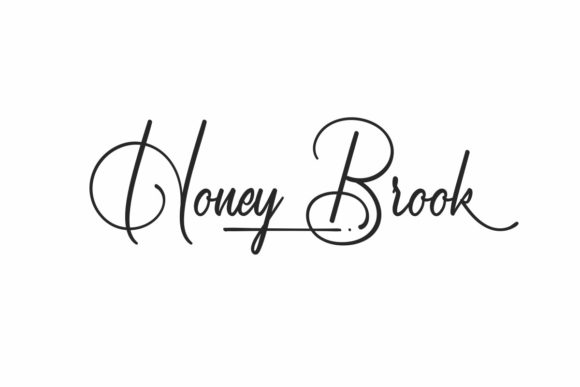
Honey Brook Font
About Honey Brook Font
Honey Brook is a dainty and unique script font. Add this romantic and lovely looking font to each of your love letters, wedding invitations or favorite design ideas, and you will be astounded by the outcome.